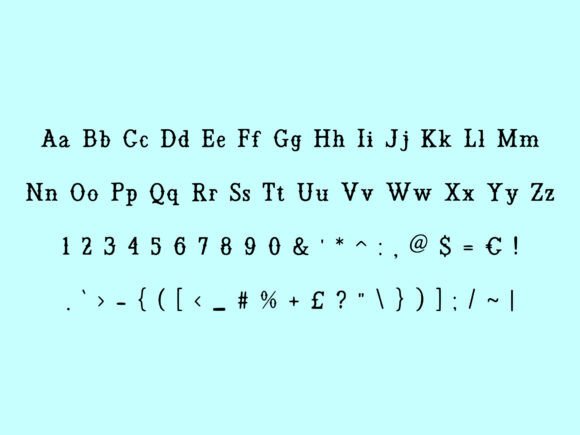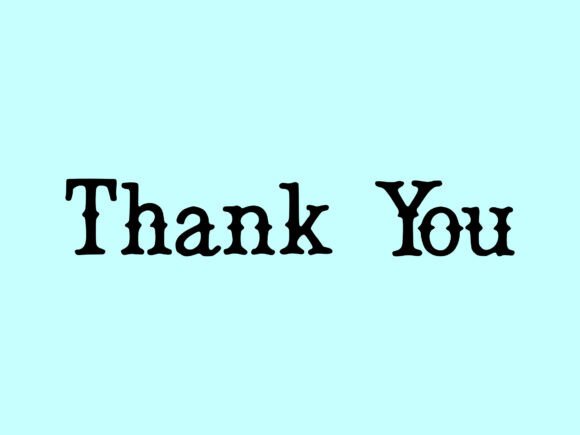
Rustic Serif Font
Rustic Serif is a bold and distressed typeface with a vintage Western charm. Perfect for logos, branding, posters, signage, apparel, and rustic-themed projects. Its rugged and classic style makes it ideal for farmhouse, country, and retro designs. Compatible with Cricut, Silhouette, and more!